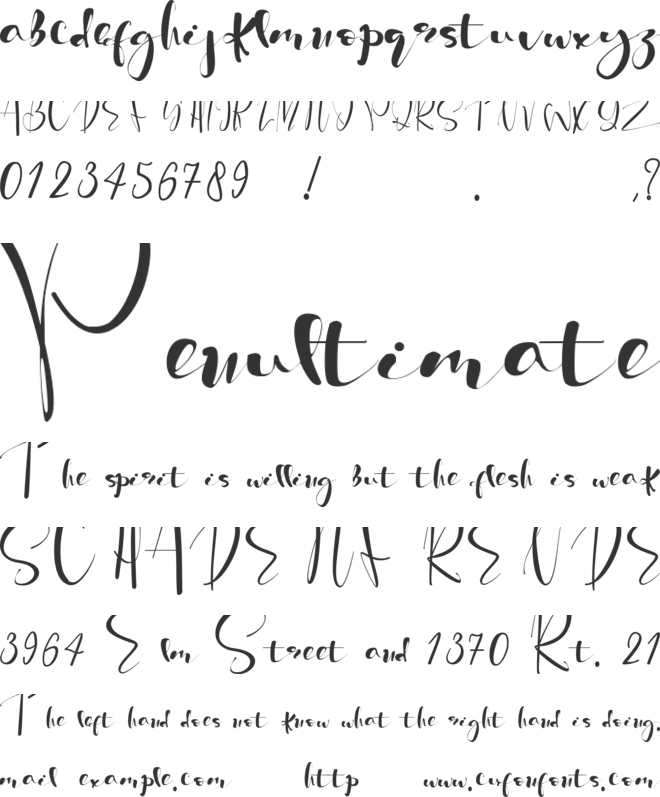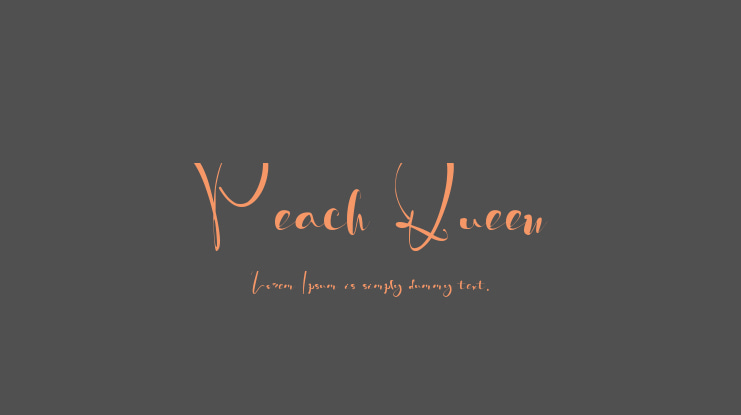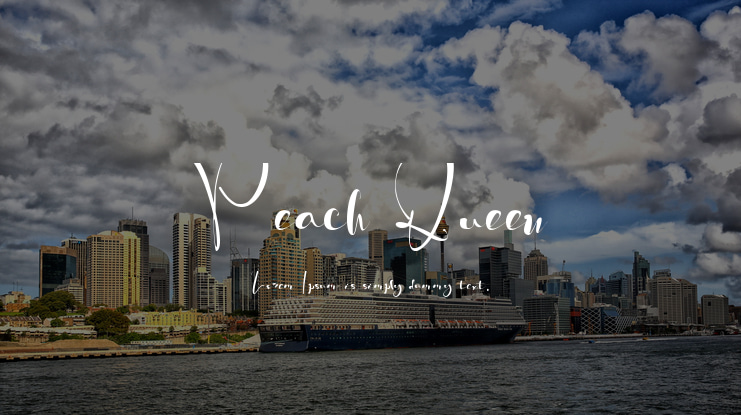
Peach Queen Font
Letterara 2019
Thanks for checking out Peach Queen Font! A fabulously fun yet beautiful script font with tons of energy, allowing you to create beautiful hand-made typography in an instant. With modern script style this font will perfect for many different project, example: invitations, greeting cards, posters, name card, quotes, blog header, branding, logo, fashion, apparel, letter, stationery and more ! Well that just about covers everything, I really hope you enjoy it and please don't hesitate to drop me a message if you have any issues or queries :)
Peach Queen font preview